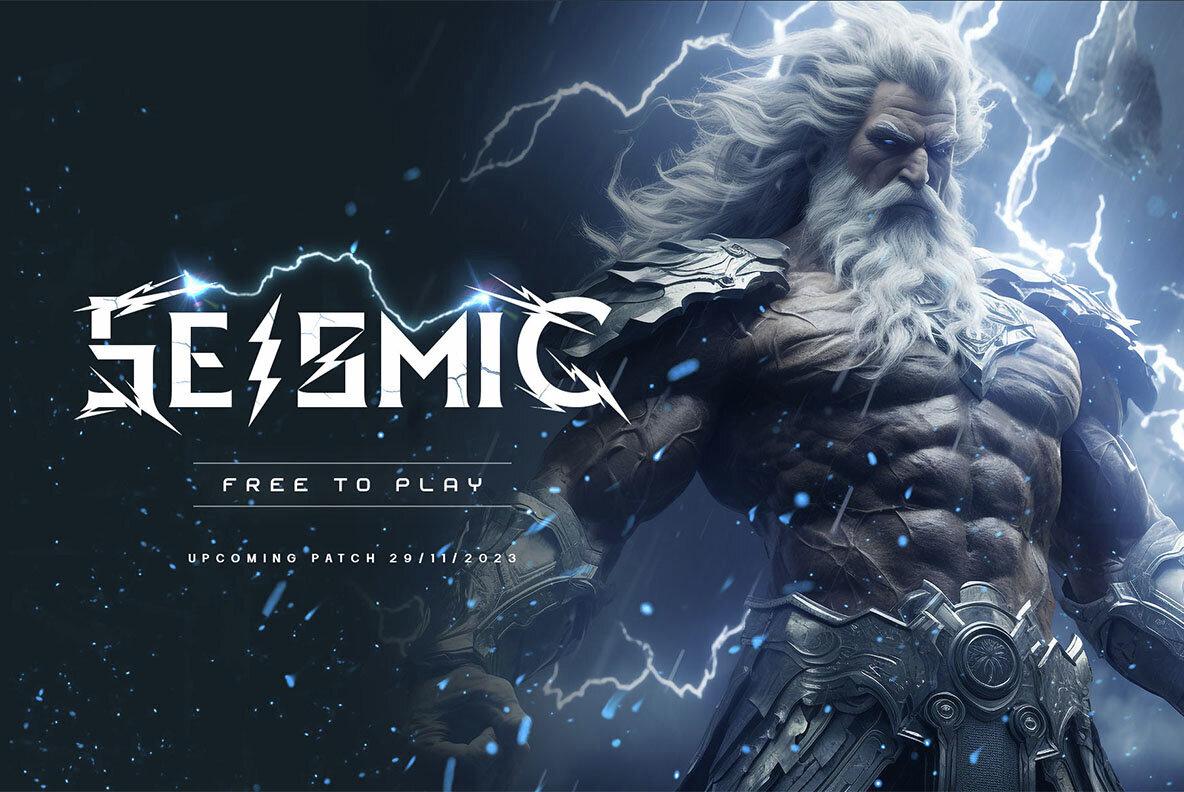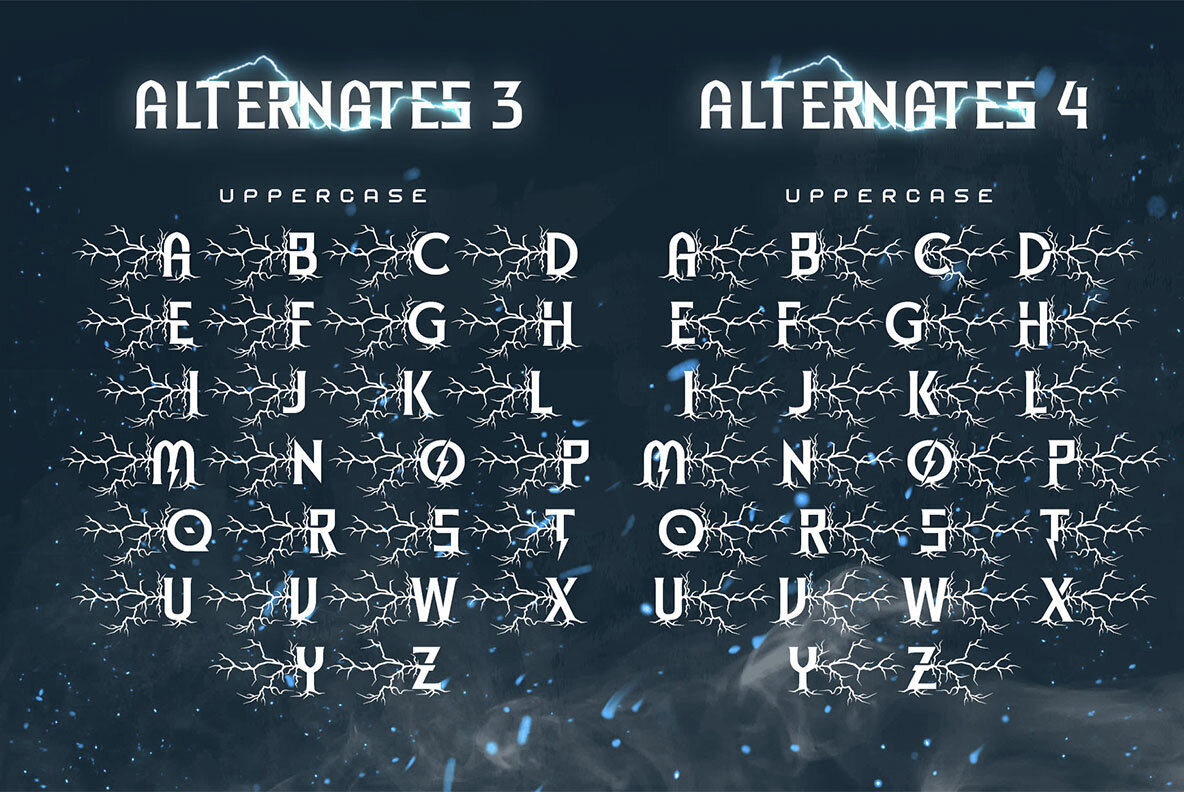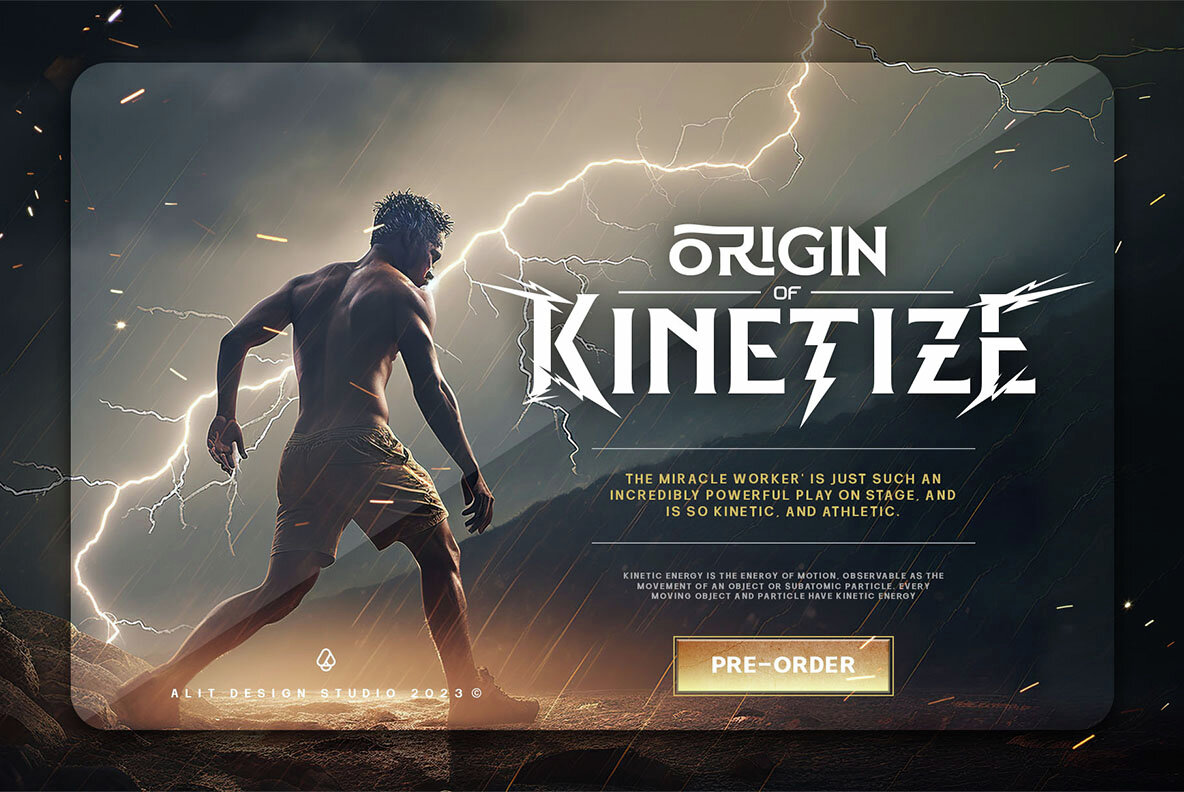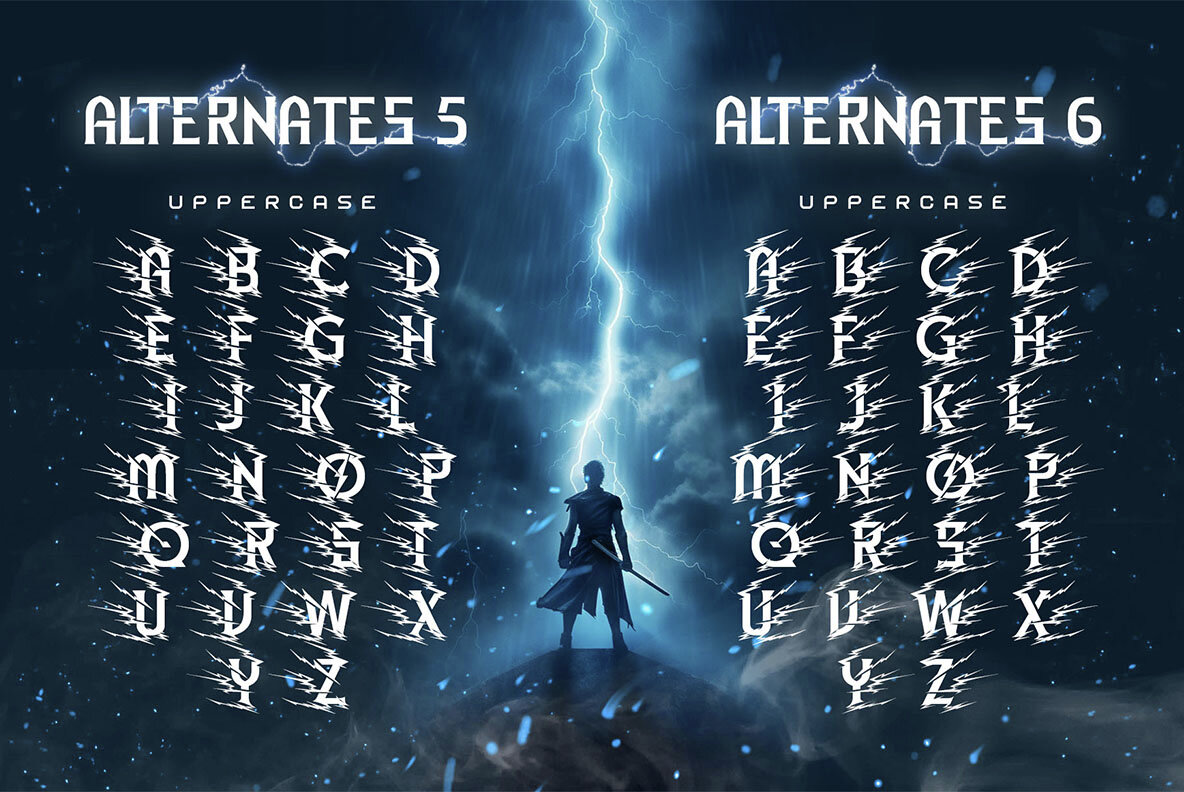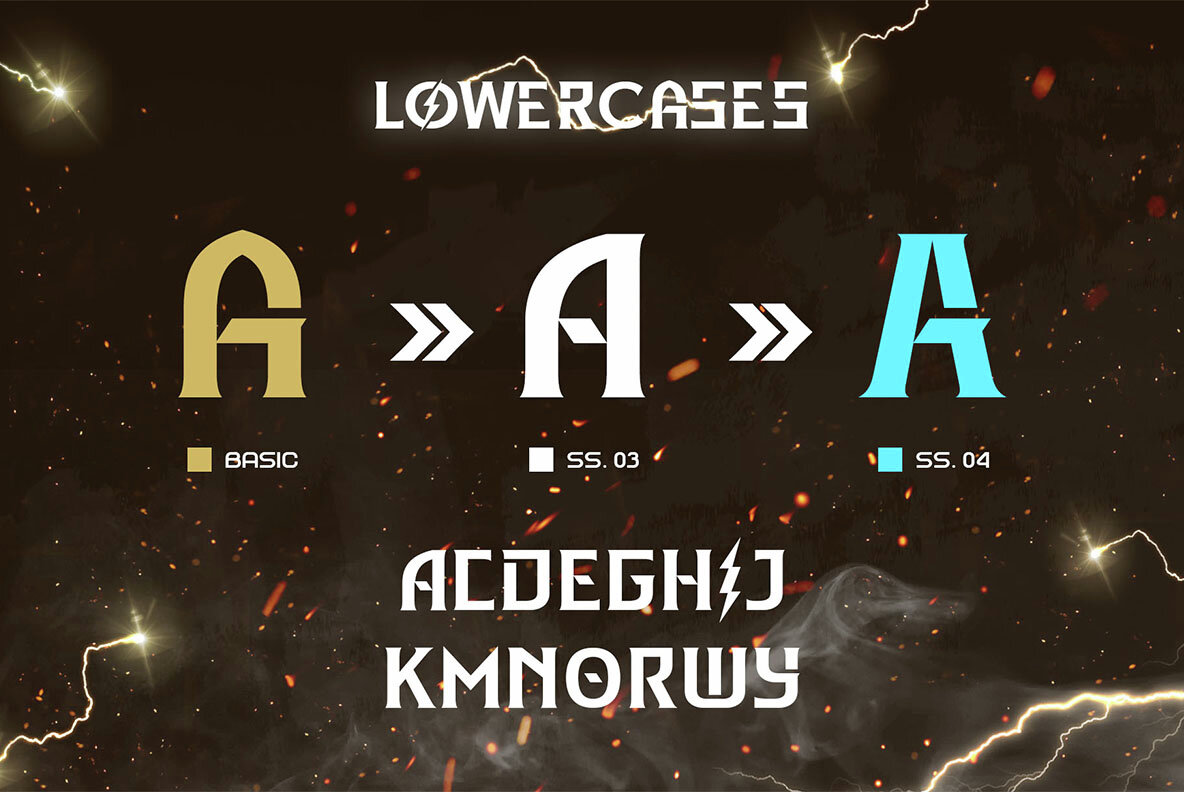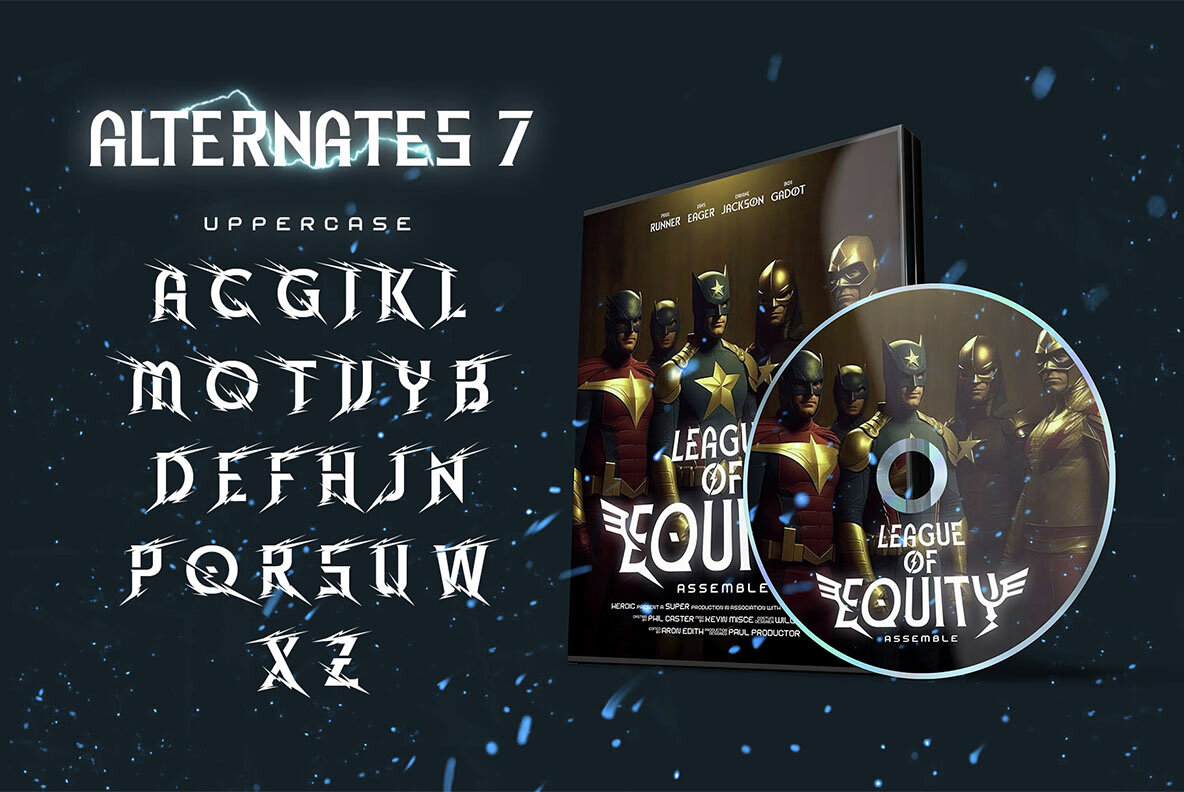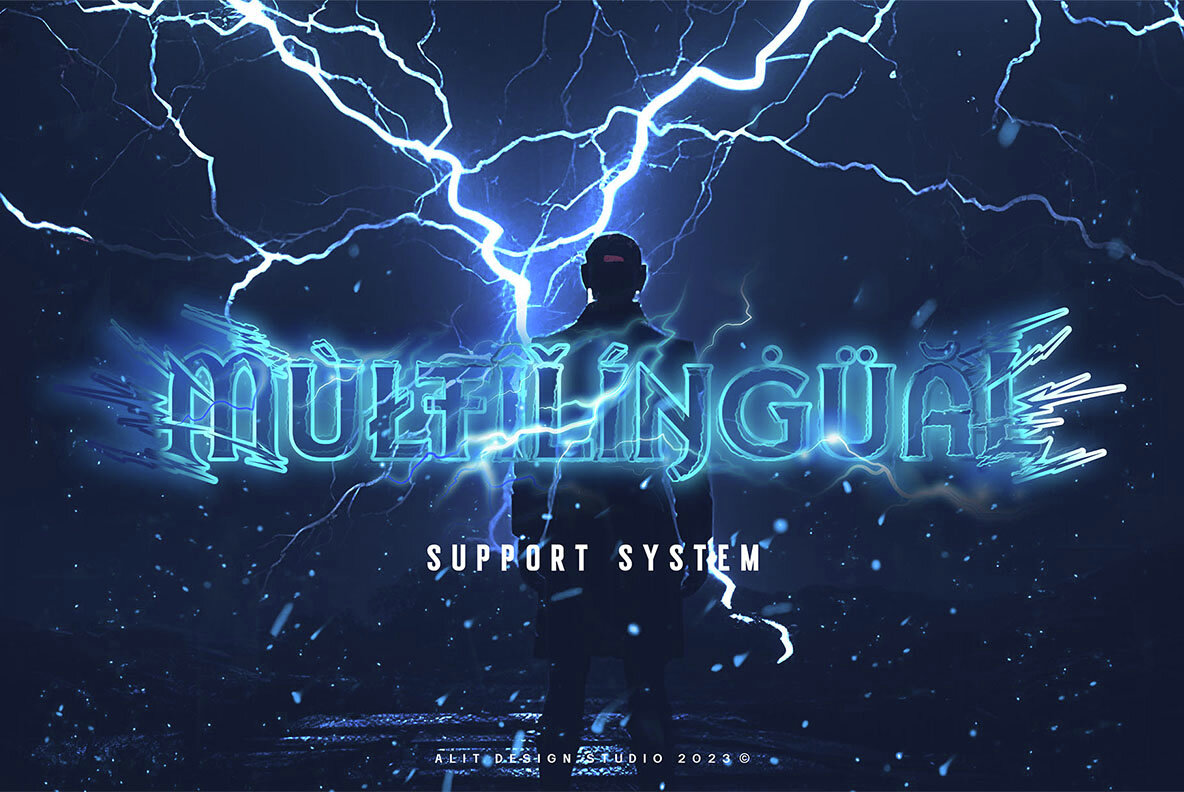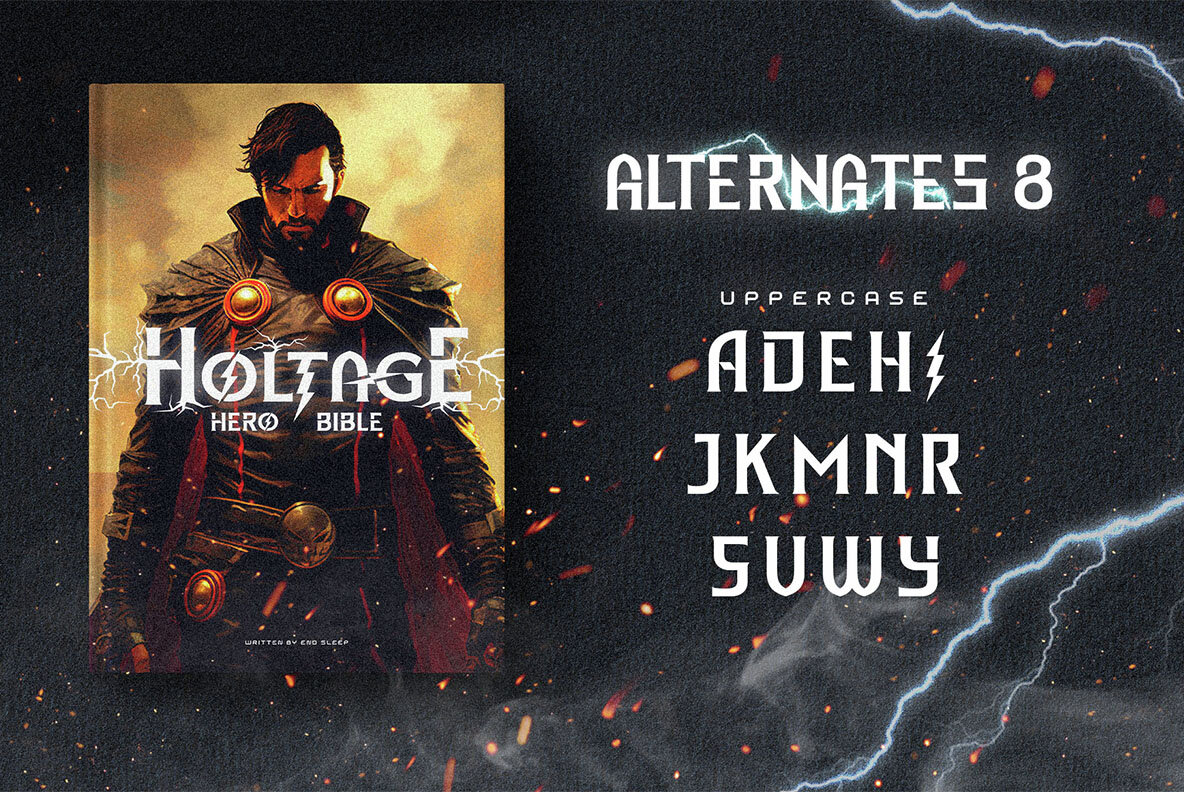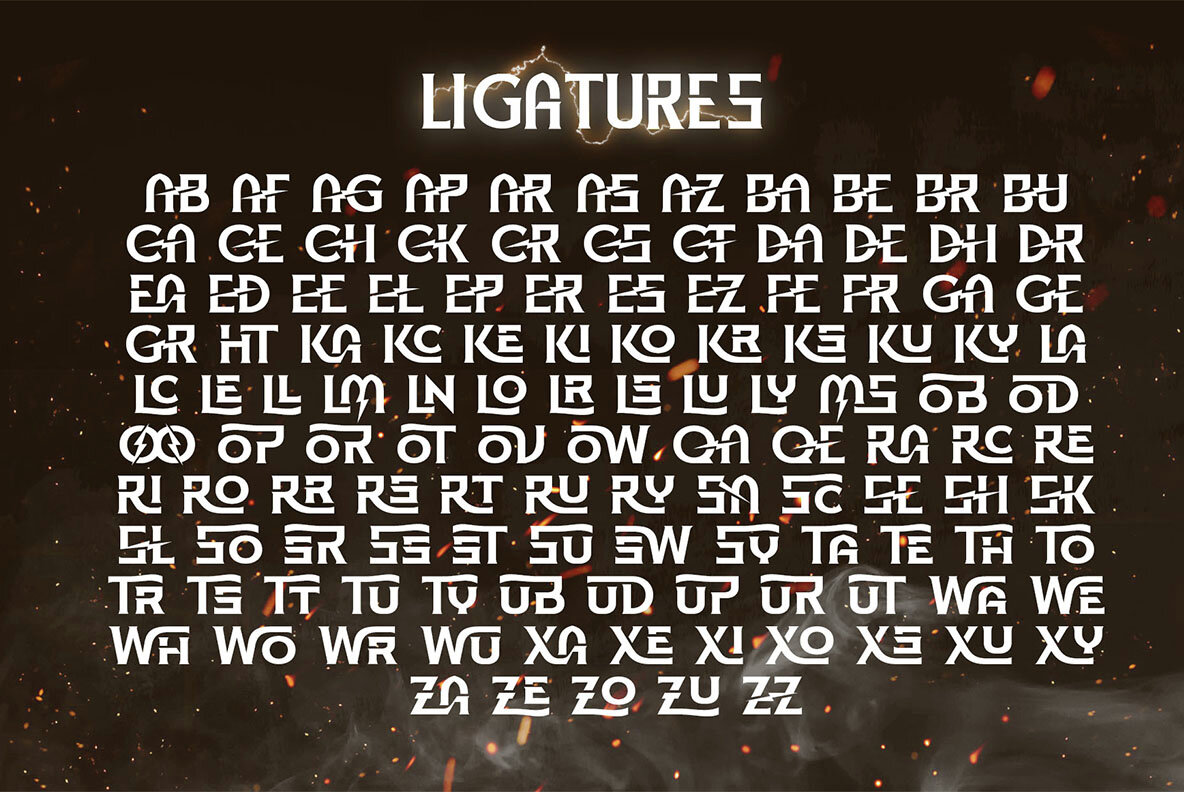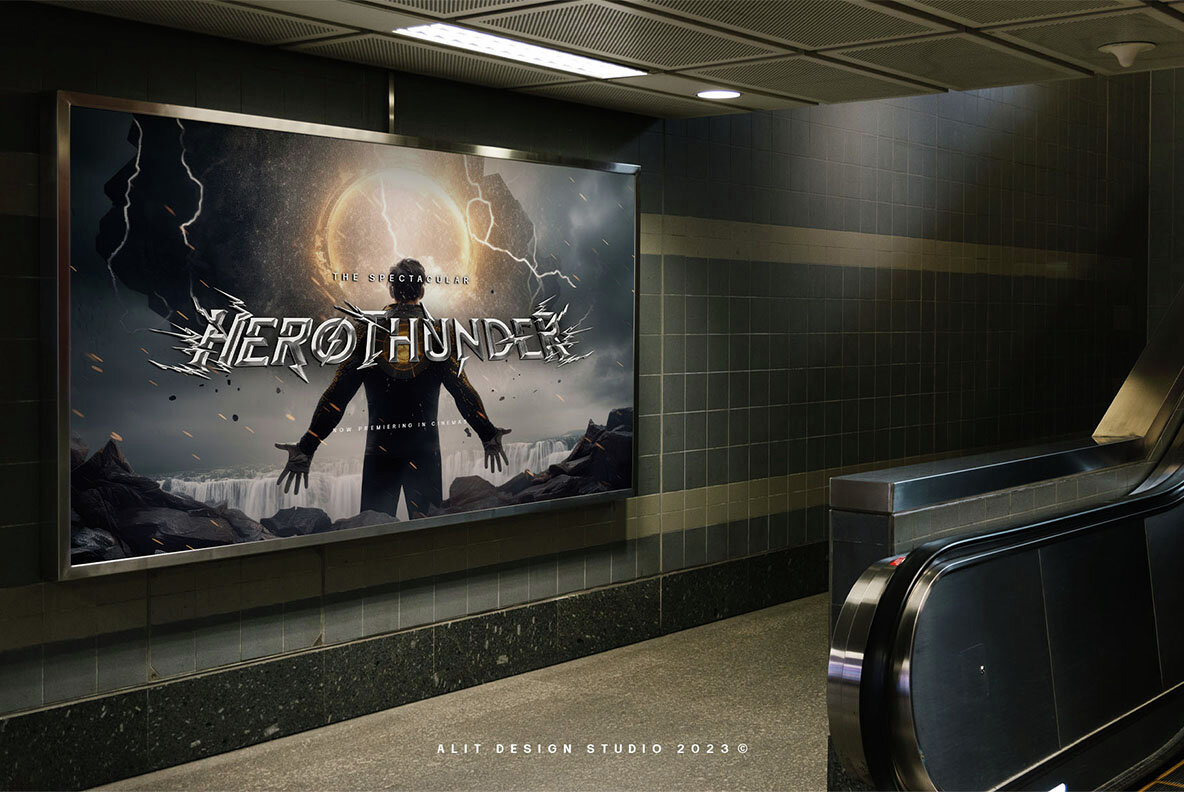
Electrone Font
Electrone Regular
Channel the electrifying energy of "Electrone," a vibrant font that captures the essence of superheroes with its lightning speed and unmatched strength. More than just a typeface, Electrone is a powerhouse for your design projects. "Electrone" is a full-fledged superhero costume for your words. Ideal for comic book titles, posters, logos, or any design requiring a bold statement, "Electrone" is here to make an impact. Embrace the electrifying power of "Electrone" and transform your designs into epic adventures. Download now and see ordinary turn extraordinary!Electrone: A Dynamic Typeface for Superhero-Themed Designs
Suit Up Your Designs